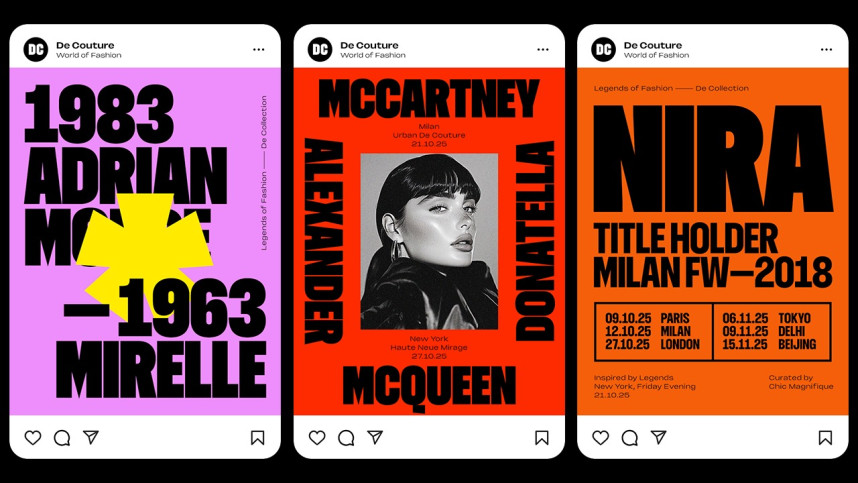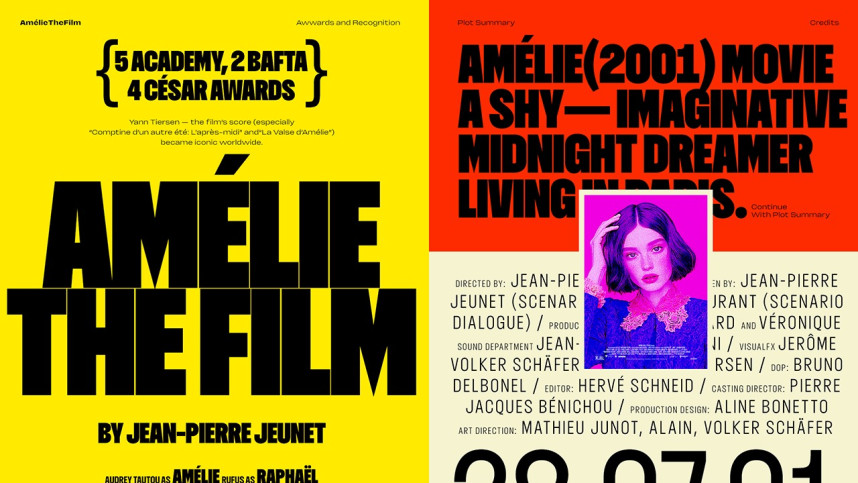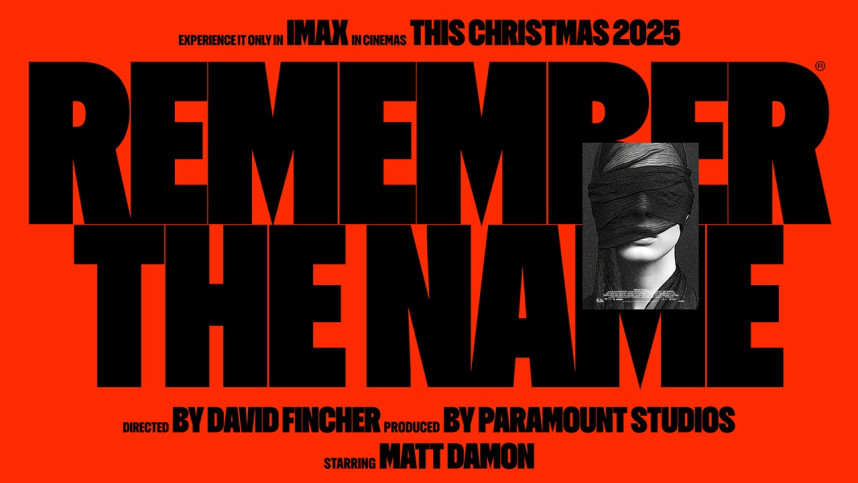
Dominique Font
Dominique Font is a condensed typeface with an eye-catching personality, crafted to stand out in every context. Designed for big and bold headlines, it captures attention instantly while maintaining clarity and charm in smaller text. Perfect for branding, social media, websites, and print, Dominique brings strength and versatility to your design toolkit.
Available in 9 weights and 18 styles, it also comes as a variable font, giving you complete control over weight, and tone — all in one dynamic file. Make every word count with Dominique.